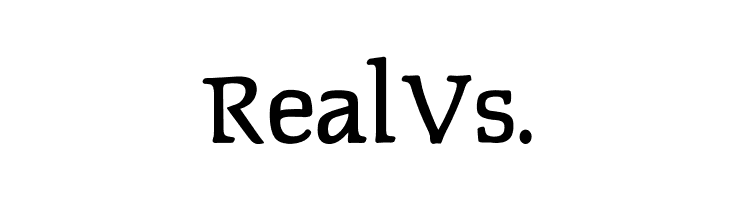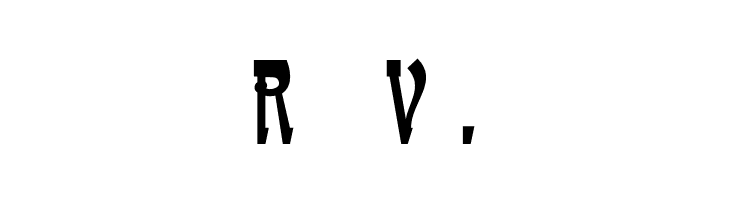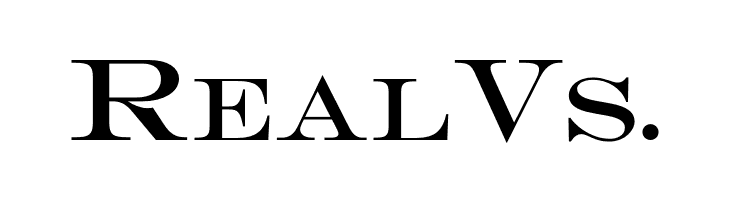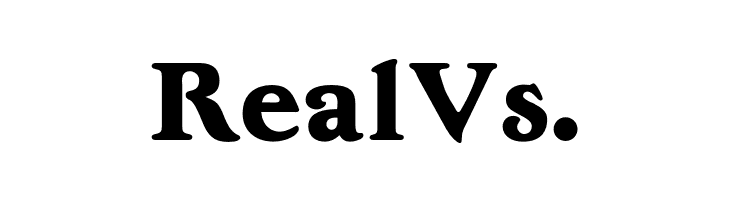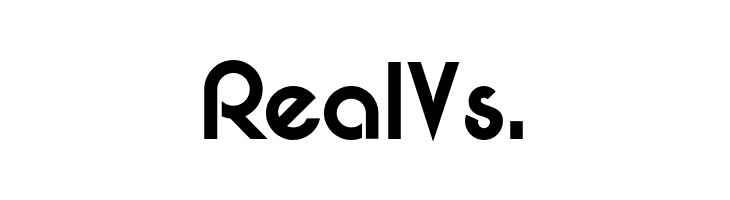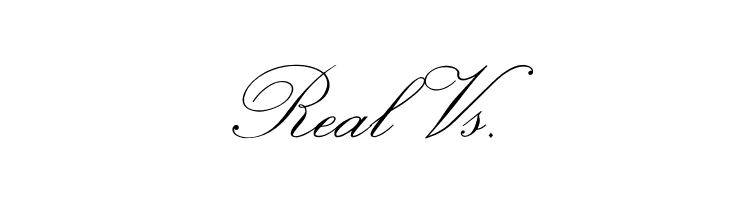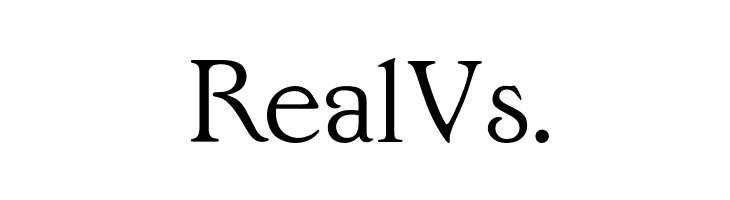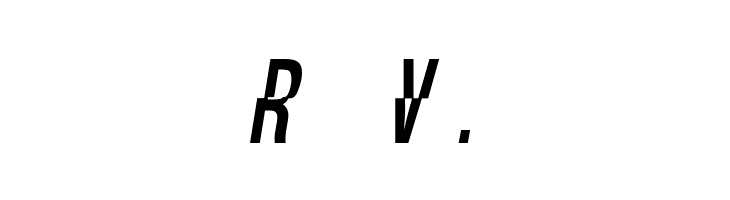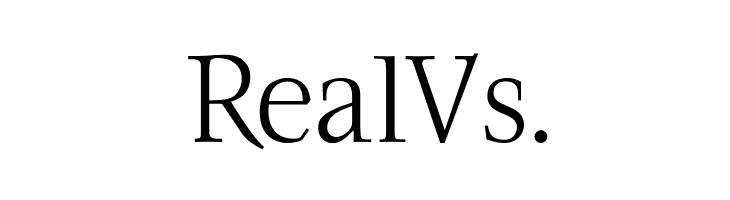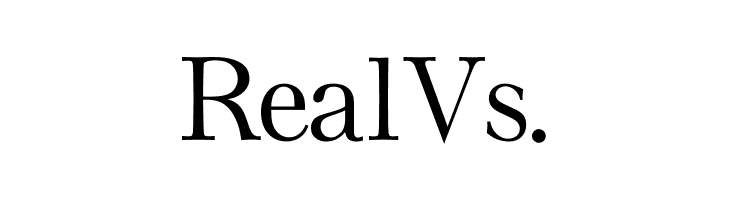
A modern, geometric font with clean lines and extended width.
A bold, extended font with a modern and sleek design.
A classic serif font with elegant curves and refined structure.
A bold serif font with strong, angular serifs and a classic, authoritative style.
A bold, serif typeface with strong, authoritative strokes and pronounced serifs.
A classic serif typeface with elegant strokes and balanced proportions.
A bold, dramatic font with sharp serifs and high contrast.
A bold slab serif font with strong, block-like serifs and a modern touch.
A bold, high-contrast serif font with strong, authoritative strokes.
A bold serif font with elegant curves and strong vertical lines.
A refined serif font with high contrast and elegant strokes, perfect for sophisticated designs.
A light, elegant italic font with a refined and sophisticated style.
A classic serif font with elegant strokes and balanced proportions.
A classic serif font with elegant, refined strokes and a traditional Roman style.
A tall, narrow font with a modern and elegant design.
A bold, decorative font with a vintage flair and strong presence.
A bold, high-contrast serif font with elongated characters for dramatic impact.
An ornate and intricate Old English style font with bold, angular letterforms.
A classic serif font with elegant, well-defined characters and sharp serifs.
A bold, modern font with thick, uniform strokes for a strong visual impact.
A classic serif font with elegant strokes and versatile design.
A bold, geometric font with clean lines and a modern aesthetic.
A modern, geometric font with consistent stroke width and a clean design.
A bold, geometric typeface with strong, blocky characters.
An elegant serif font with a medieval flair and sharp, pointed serifs.
A classic serif font with elegant, elongated strokes and subtle curves.
An elegant script font with flowing, cursive letters and medium contrast.
An elegant and ornate script font with flowing, cursive letterforms.
A bold, slab serif font with a strong, geometric design.
A medium-weight serif font with a blend of traditional and modern elements.
A bold, decorative typeface with whimsical curves and exaggerated serifs.
A bold, geometric font with a 3D effect and modern, industrial style.
A bold, playful font with whimsical, exaggerated shapes and strong presence.
A bold, slanted font with a distinctive cut through each character, exuding a modern and dynamic style.
A bold, classic serif font with elegant proportions and strong strokes.